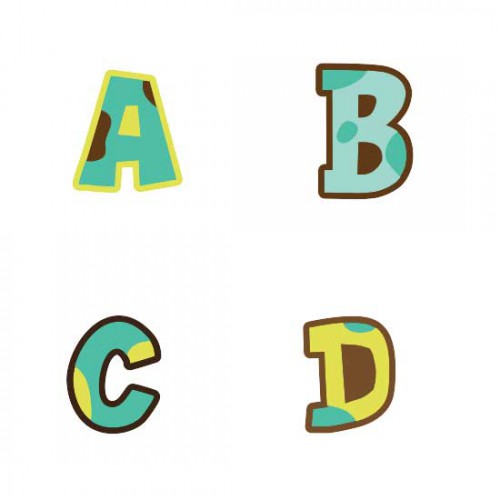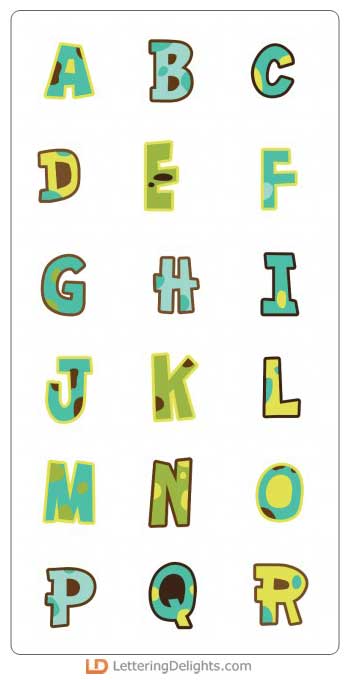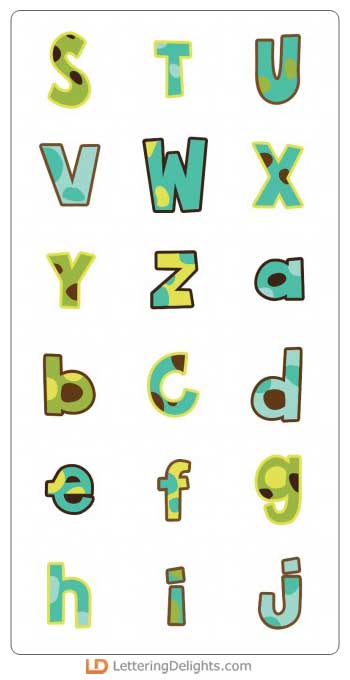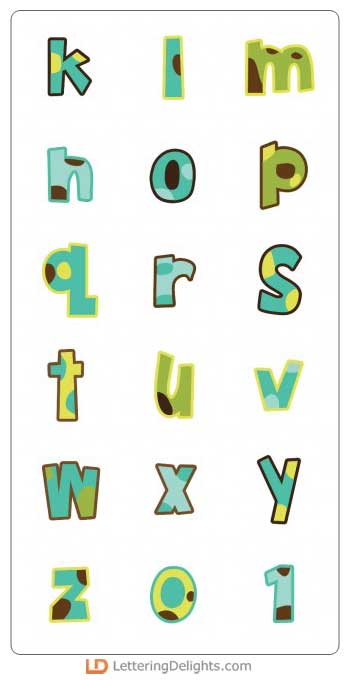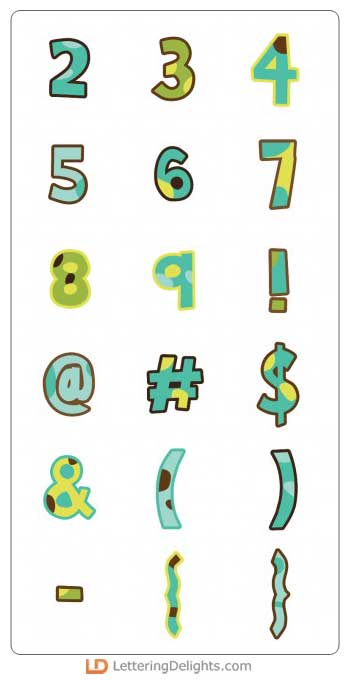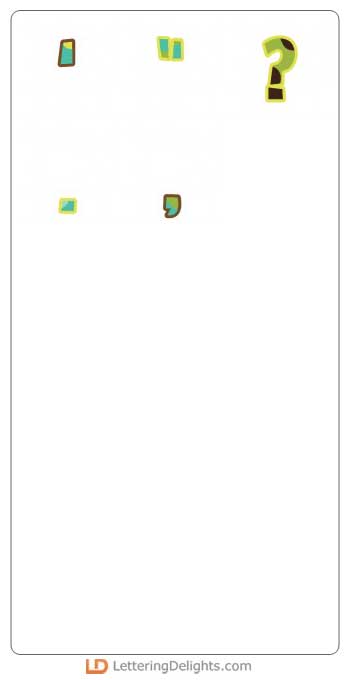
Spot Alpha - SV
Dot lovers beware! These letters will have you seeing spots. Plus, they coordinate perfectly with the Doggone Good and Feliz Navi-Dog SVG sets. (User Tip: This alphabet has such adorably shaped characters! It's obviously darling with the 'spot' layer, but omit that layer on occasion and you'll find double the uses and a whole new look!)